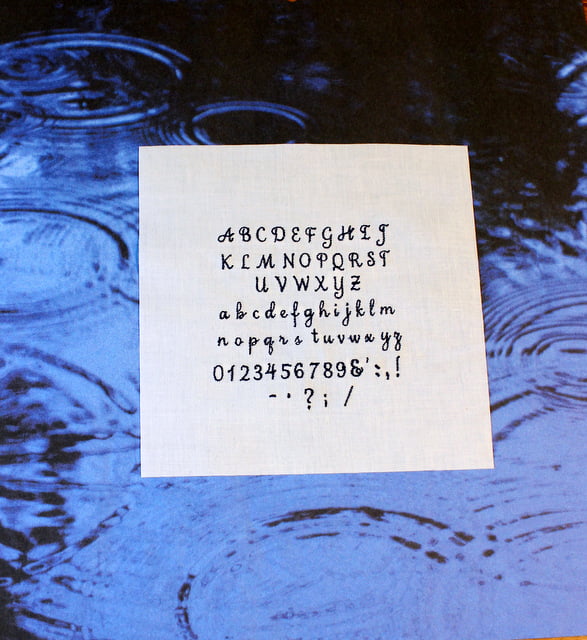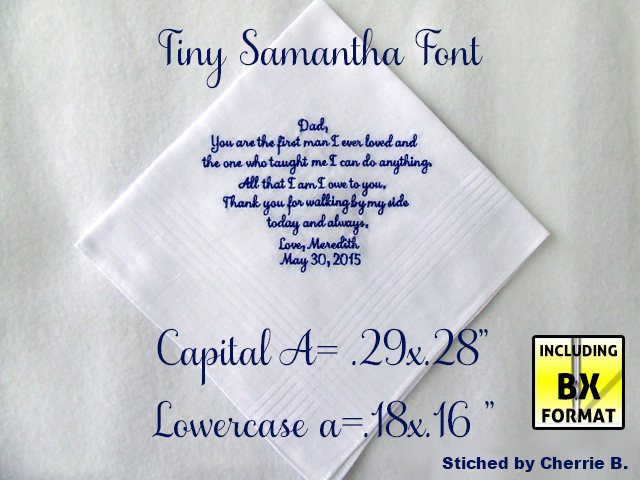
This very small font was entirely digitized manually to ensure perfect start and ending of each letter. Each letter starts on the left and ends on the right. This font should be stitched with a 65/9 or 60/8 needle and with 60 wt thread only. Despite its smallness, the font is very readable and elegant looking. Tips on how to stitch perfect small lettering are part of your download. Great for heirloom stitching.